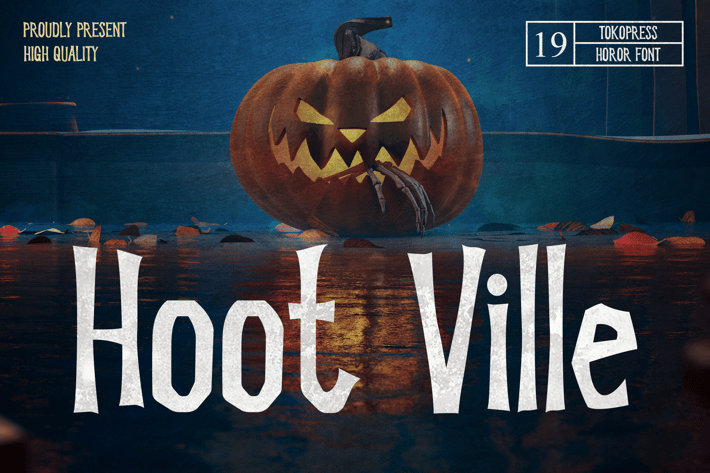
Hoot Ville - Spooky Font
Hoot Ville - Scary Font
Hoot Ville is a haunted display typeface designed to stir mystery and charm into every creepy headline. With irregular strokes, playful jagged edges, and a slightly bouncing baseline, it balances eerie with friendly—making it ideal for Halloween-themed projects, horror content, and supernatural storytelling. Its rough letterforms add personality and create a hand-crafted spooky vibe without being too dark.
Hoot Ville thrives in horror-themed branding, thriller game UIs, Halloween invitations, and eerie movie posters. Whether you're crafting a trick-or-treat flyer, ghost-themed merch, or chilling YouTube thumbnails, this font captures that fun-spooky blend with just the right dose of oddness. It appeals to creators who want visual tension with a playful undercurrent.
Key Features :
Distinctive Horror-Play Balance
• Uneven letter height with expressive proportions
• Slight bounce and jagged serifs evoke handmade creepiness
• Visual energy that fits horror, humor, and children’s Halloween themes
Made for Seasonal & Genre Content
• Great for spooky marketing, haunted attractions, or video thumbnails
• Works well in layered compositions and shadowed typography
• Pairs perfectly with horror-themed graphics and illustration styles
Capture the perfect spooky tone with a font that screams mischief meets mystery. Hoot Ville adds twisted fun to every letter—ideal for designers, game devs, party planners, and horror content creators. Download now and make your creepy designs unforgettably cool.